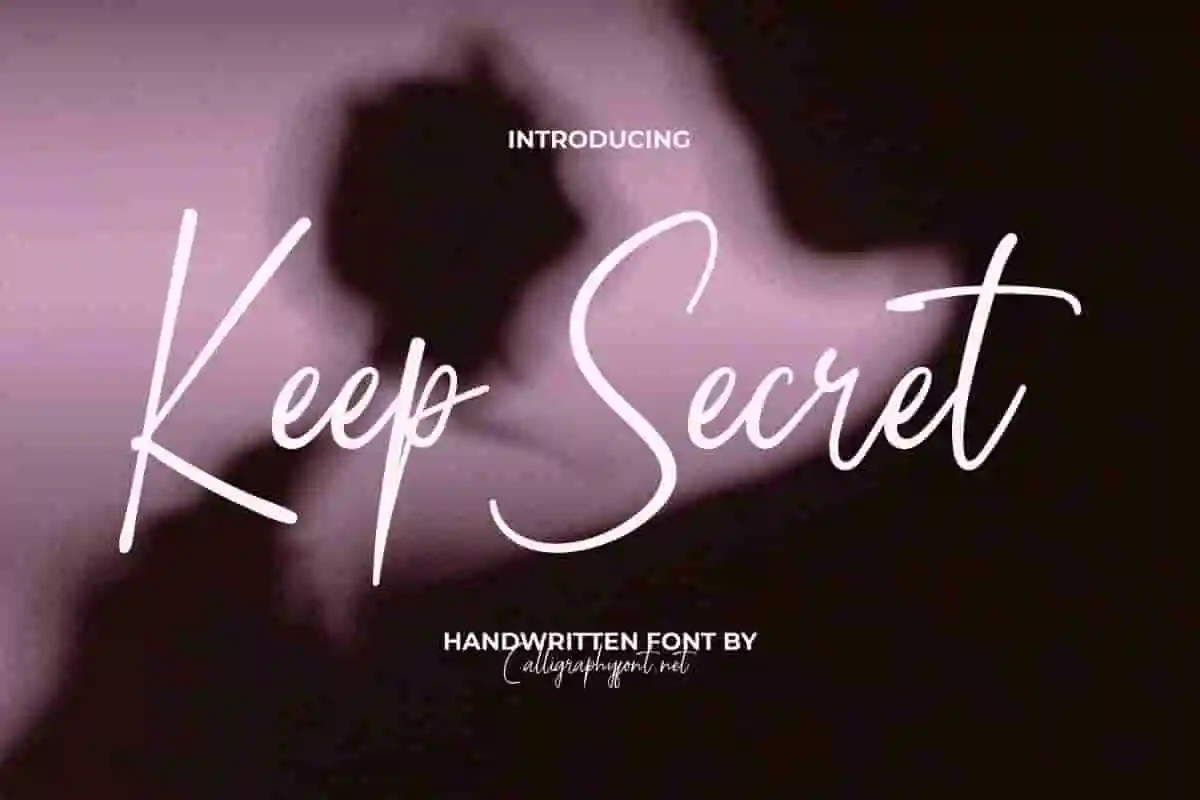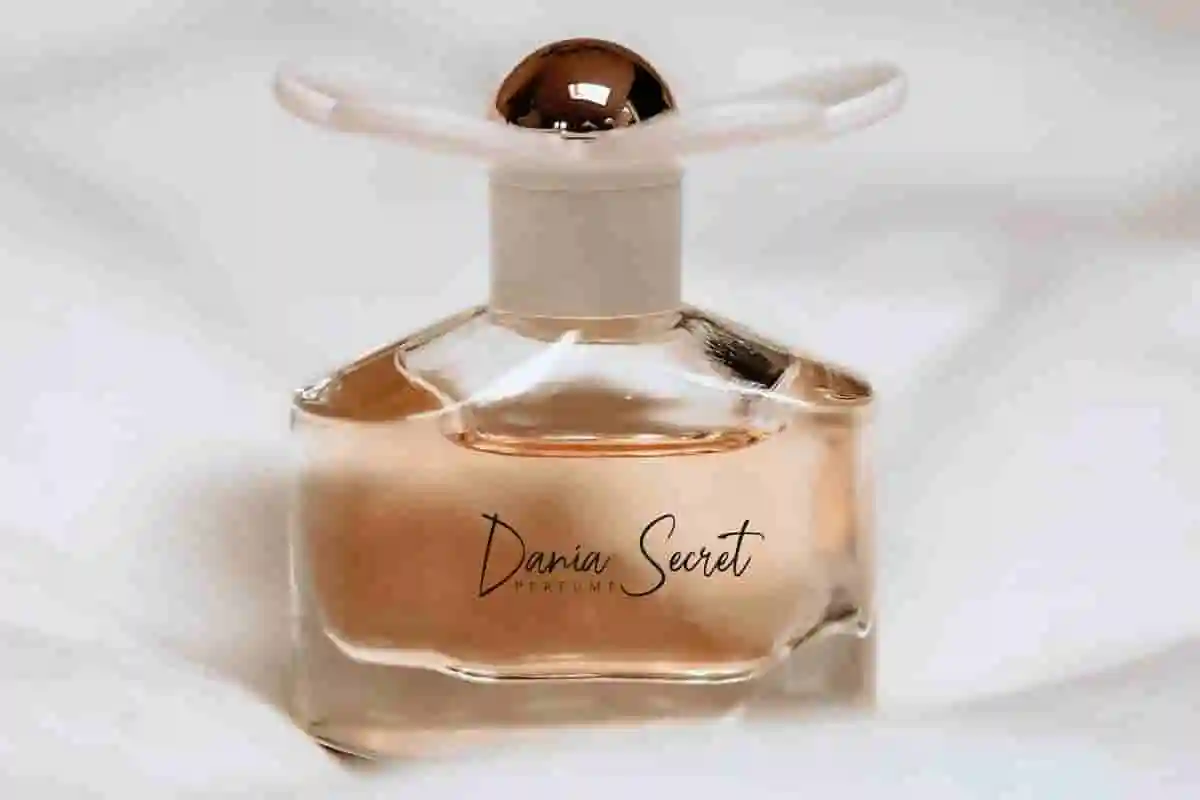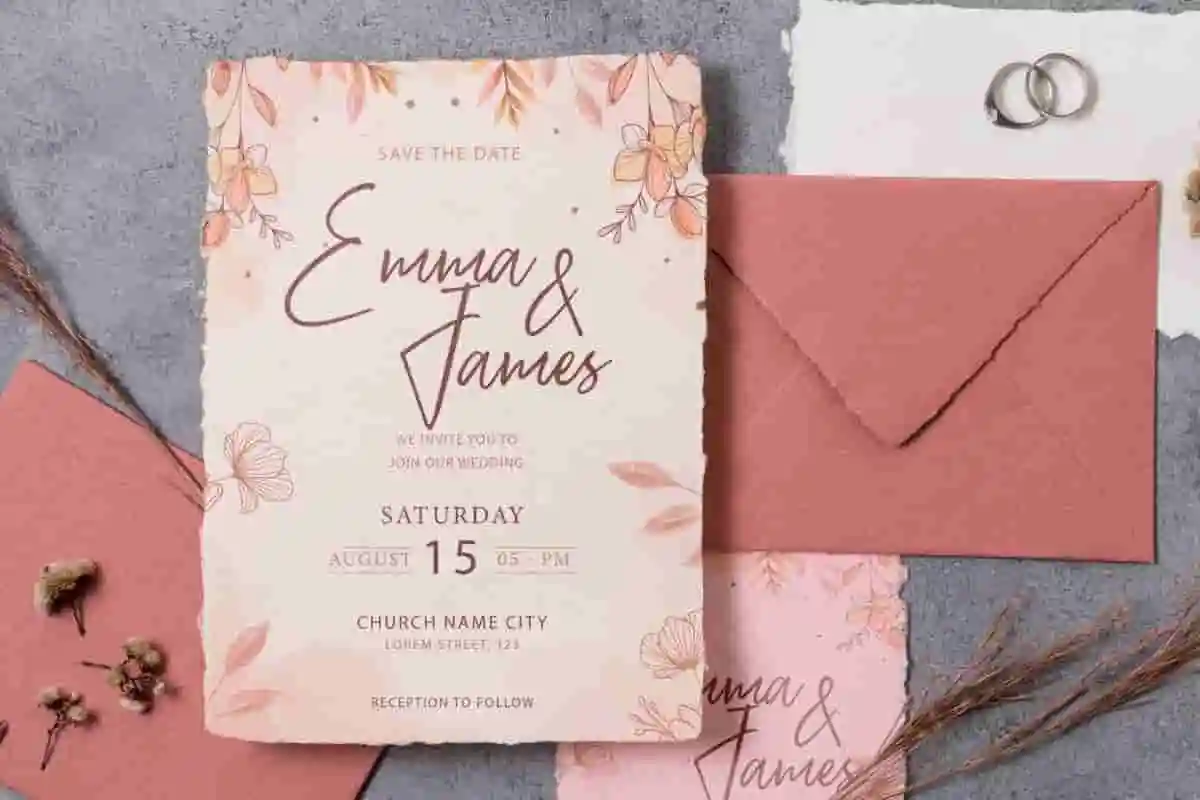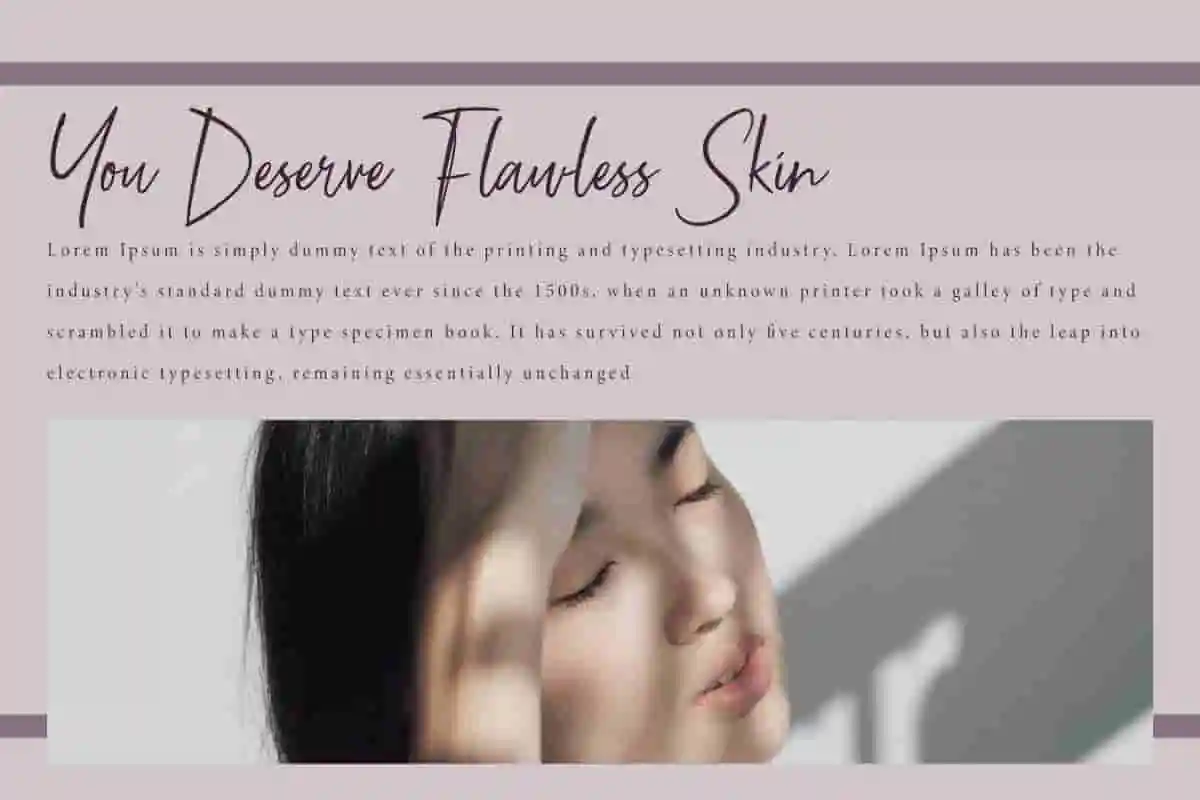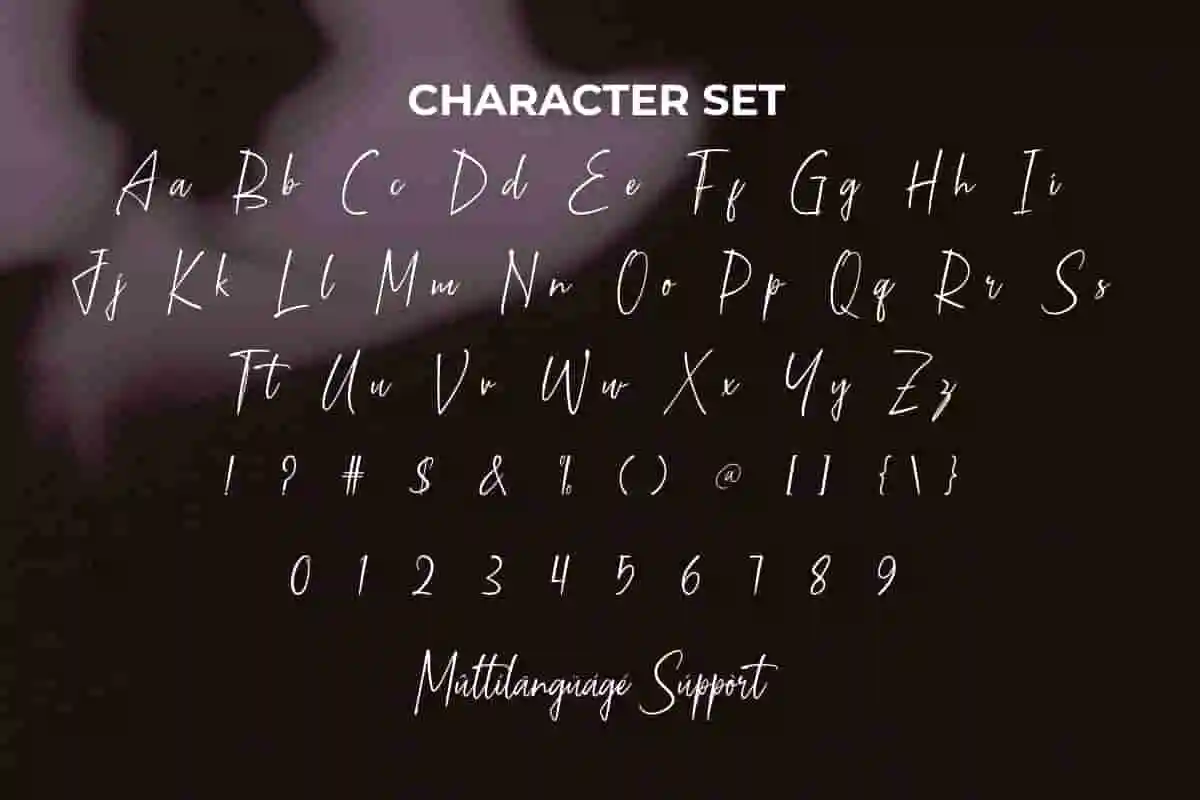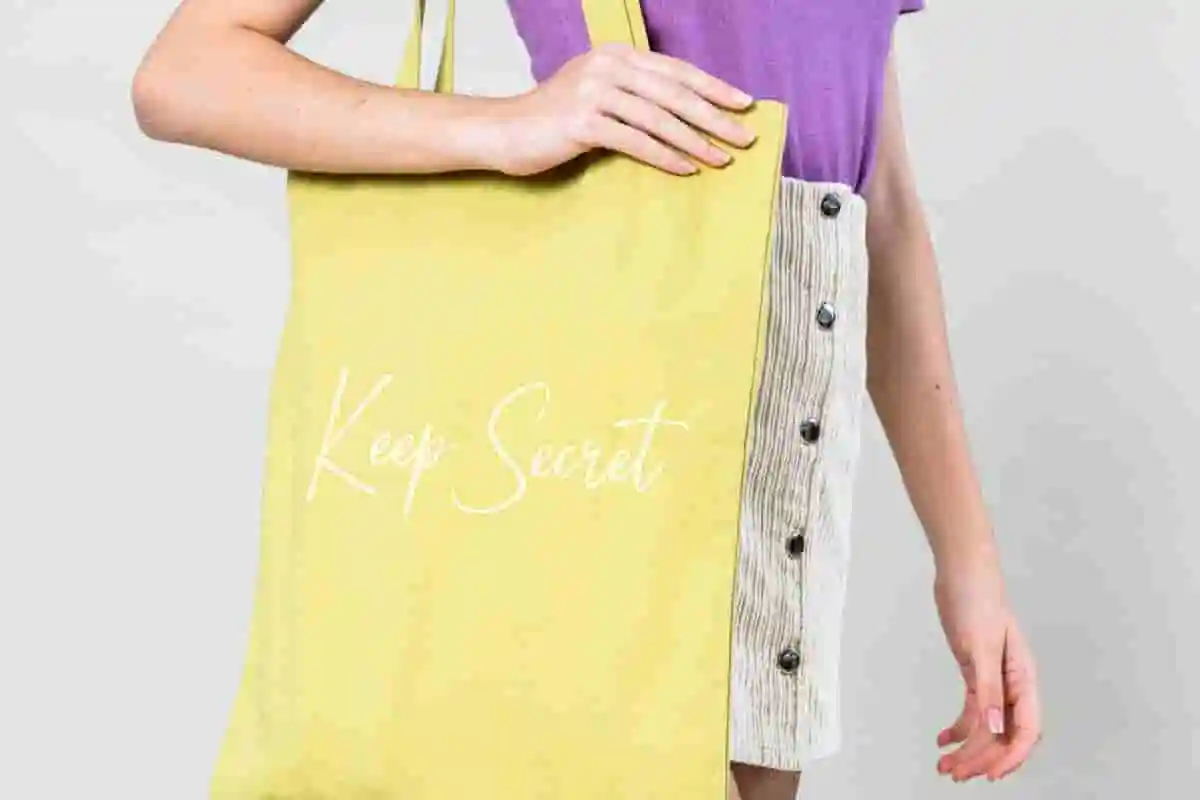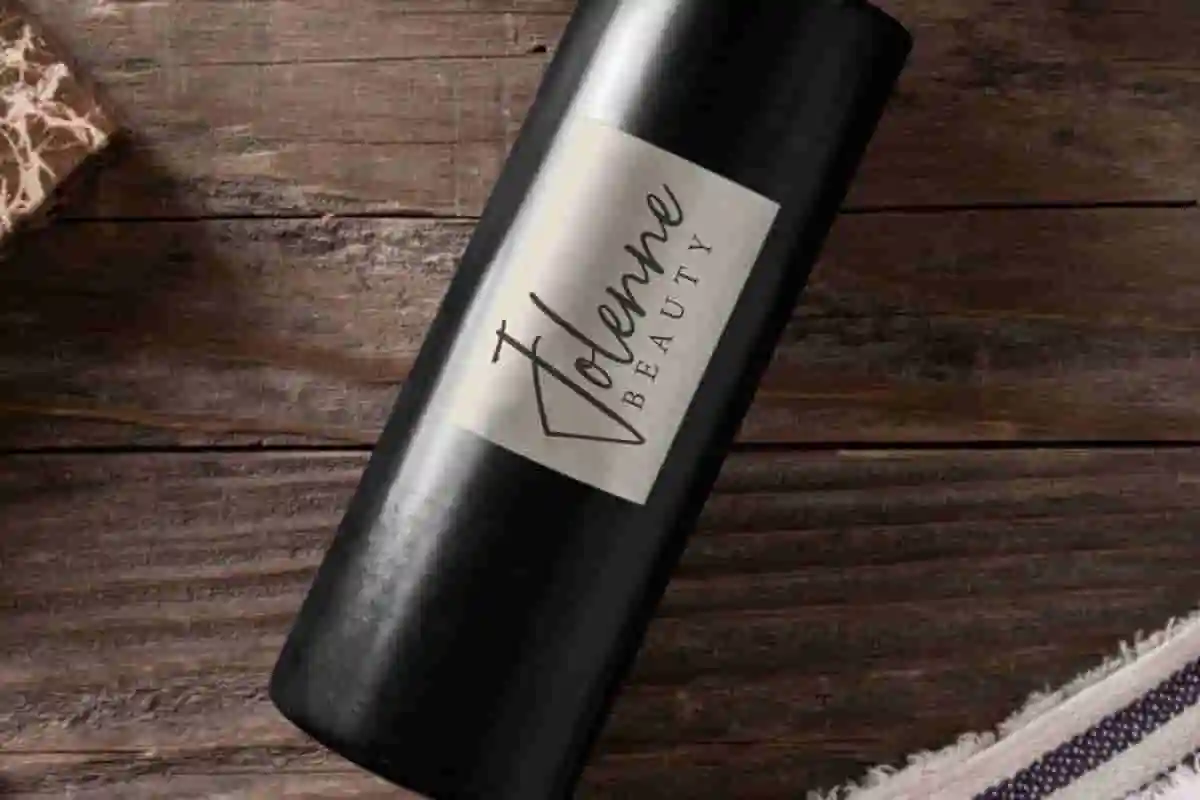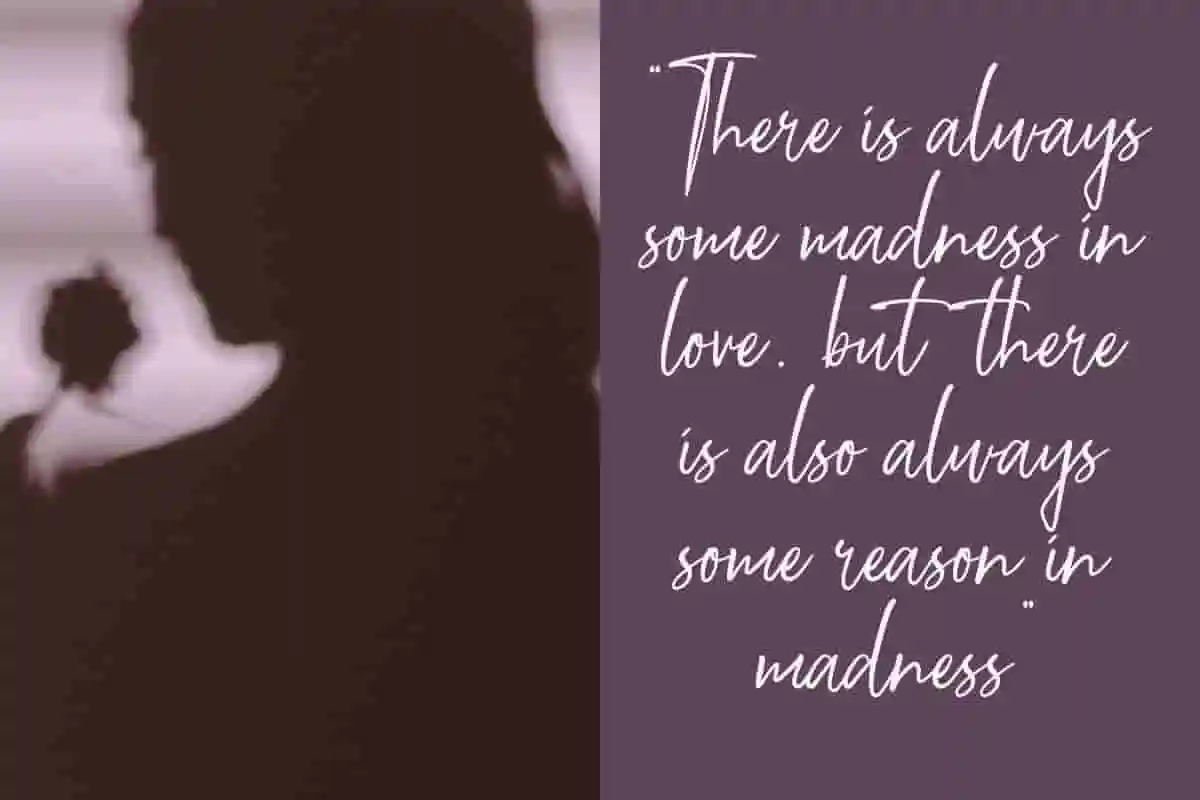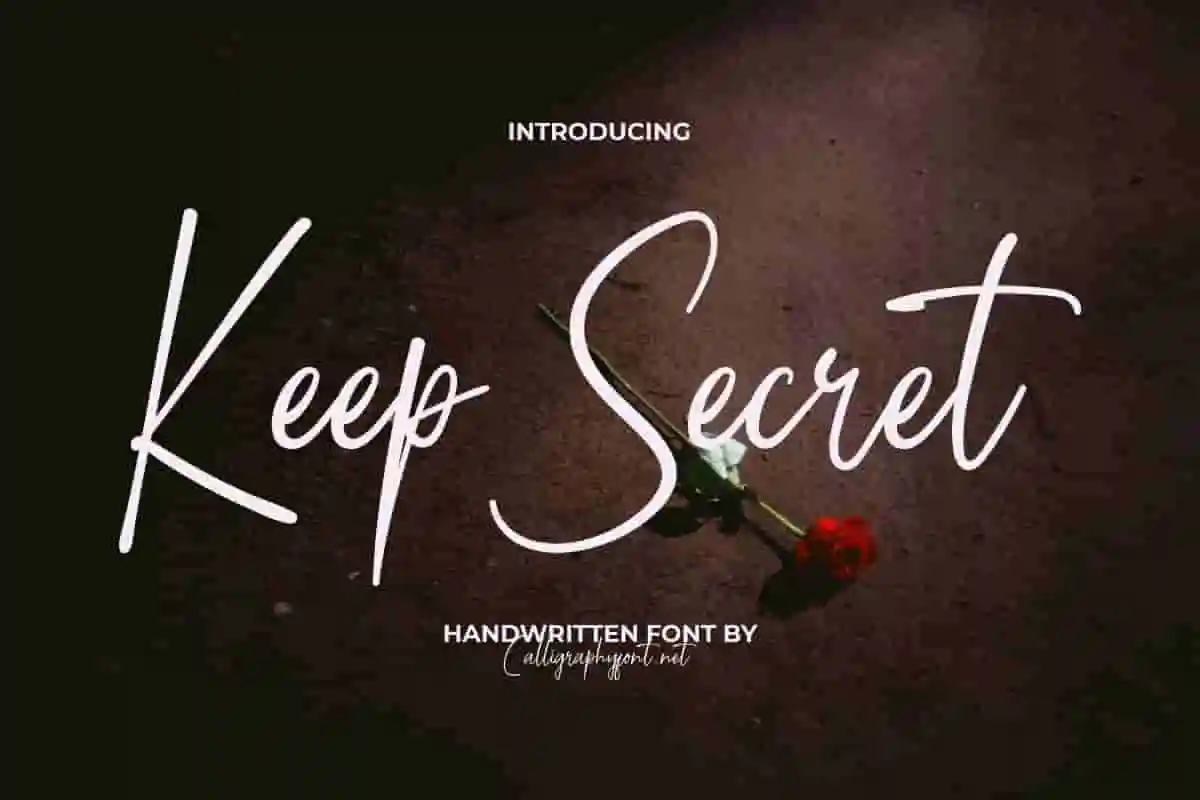
Keep Secret Handwriting Font
Keep Secret Font is a perfect handwriting that presents an elegant and modern typeface at first glance. Great for use in busy backgrounds and of course can be adjusted as needed!
Keep Secret Font is a fabulous handwritten font created with love. A casual look that flows naturally and is easy to read will be versatile in any context. Well suited to ads, album covers, branding logo, cards, flyers, invitations, label, menus, packaging, print on fabrics, quotes, signage, social media, sticker, titles, watermarks, web, and more.
Bring a touch of authenticity and personal flair to your creative projects with Keep Secret Handwriting Font. Designed to mimic the natural flow of handwritten letters, this font adds warmth, intimacy, and personality to every design. Whether you’re working on invitations, greeting cards, branding, or social media content, Keep Secret Handwriting Font gives your words a voice that feels genuine and heartfelt.
This versatile handwriting font is perfect for designers, entrepreneurs, and creatives who want to stand out. Its smooth strokes and organic curves create a stylish yet approachable look, making it ideal for logos, product packaging, posters, blog graphics, and even digital quotes. With its natural rhythm, your designs will feel more relatable, human, and engaging—perfect for connecting with your audience.
Keep Secret Handwriting Font doesn’t just look beautiful—it tells a story. Its handcrafted style captures the imperfections that make handwriting unique, giving your projects an authentic charm. It’s not just a typeface; it’s a design tool that inspires creativity and adds soul to your work.
Whether you’re crafting elegant wedding stationery, branding for a cozy café, or creating standout Instagram posts, this font adapts beautifully to any medium. Easy to use across multiple design platforms, Keep Secret Handwriting Font is a must-have addition to your font collection.
Don’t let your designs go unnoticed. Let Keep Secret Handwriting Font elevate your projects with its charm, character, and creative freedom.
Keep Secret Handwriting Font gives your designs an authentic handcrafted feel. The concentration of brush strokes that form the letters is sleek and attractive so it will look extraordinary and suitable for apparel, beauty skin clinic, cosmetic, fashion, florist, graphic design, makeup artist, merchandise, perfume maker, photography, skincare, spa salon, wedding organizer, etc.
Keep Secret Handwriting Font comes with a complete set of Uppercase and Lowercase Basic Characters, Number, a large range of Punctuation, and Symbol. It has included multilingual character support ready to be used on Windows or Mac machines with a simple installation. It’s tested to work well in the Adobe Apps (Illustrator, Adobe InDesign, Adobe Photoshop) CorelDraw, and others. PUA Encode Characters means you can access all the characters easily – Fully accessible without additional design software.